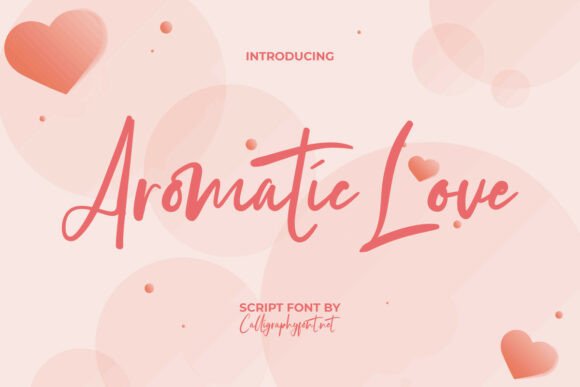
Aromatic Love Font: Elevate Your Brand with Elegant Typography
In the world of typography, a font can make or break the visual identity of a brand. Aromatic Love Font is a stunning script font that has been carefully crafted to bring an air of elegance and sophistication to any creative business. With its unique handcrafted marker style, this font is sure to capture the attention of your audience and leave a lasting impression.
What is Aromatic Love Font?
Aromatic Love Font is a lovely elegant script font that boasts an original handcrafted marker style, reminiscent of stylish writing. Its unique look and feel make it an ideal choice for businesses that want to stand out from the crowd and showcase their brand in a creative and visually appealing way.
Key Features of Aromatic Love Font
- Handcrafted marker style: Aromatic Love Font features an original handcrafted marker style that gives it a personal and human touch.
- Elegant and sophisticated: This font exudes elegance and sophistication, making it perfect for high-end brands and businesses.
- Versatile: Aromatic Love Font is versatile and can be used for a wide range of creative businesses, including accessories, boutique, cafeteria, craft, event organizer, florist, furniture, jewelry, printing, publishing, restaurant, skincare, spa, salon, wedding planner, writer, and more.
- Beautiful typography: This font features stunning typography that is sure to capture the attention of your audience and leave a lasting impression.
Why Choose Aromatic Love Font?
- Unique and original: Aromatic Love Font is a one-of-a-kind font that will help your brand stand out from the competition.
- Easy to read: Despite its elegant and sophisticated look, Aromatic Love Font is easy to read, making it perfect for use in a variety of contexts.
- Customizable: This font is highly customizable, allowing you to adjust the size, color, and style to suit your brand’s needs.
- Supports multiple languages: Aromatic Love Font supports multiple languages, making it a great choice for businesses with a global reach.
- What is Aromatic Love Font? Aromatic Love Font is a lovely elegant script font with an original handcrafted marker style.
- What is Aromatic Love Font used for? Aromatic Love Font can be used for a wide range of creative businesses, including accessories, boutique, cafeteria, craft, event organizer, florist, furniture, jewelry, printing, publishing, restaurant, skincare, spa, salon, wedding planner, writer, and more.
- Is Aromatic Love Font easy to read? Yes, Aromatic Love Font is easy to read, making it perfect for use in a variety of contexts.